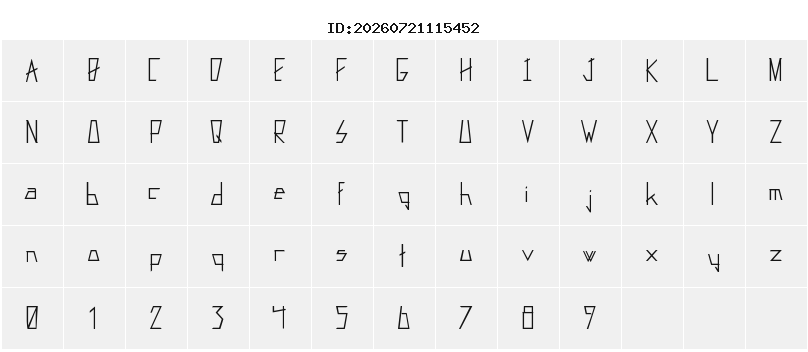
Fixxed Preview
• Font Name: Fixxed
• Full Font Name: Fixxed
About Fixxed.ttf
Fixxed.ttf is a modern, elegant sans-serif font designed for ultimate readability and visual harmony. Perfect for branding, headlines, web design, and print materials.